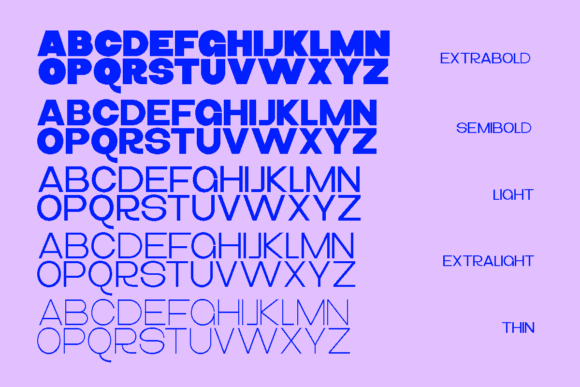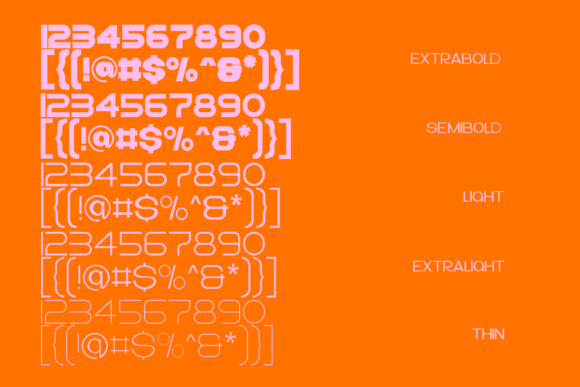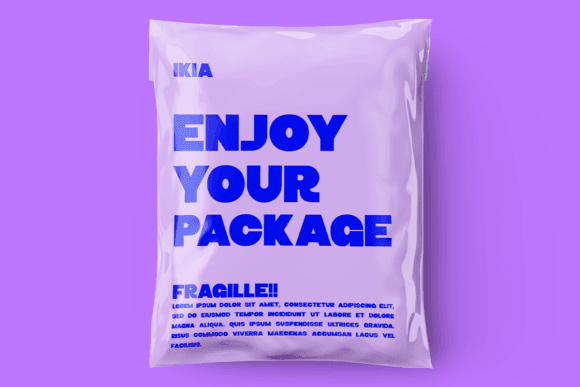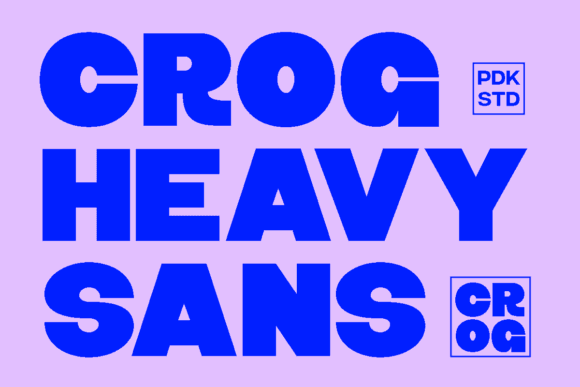
Guide to Crog Font: A Bold, Cheerful Sans-Serif Typeface
When it comes to fonts, the right choice can make or break a design. Typography plays a crucial role in conveying mood, message, and brand identity, and one standout option that checks all the right boxes is Crog Font. This bold sans-serif typeface has captured the attention of designers thanks to its unique combination of confidence, playfulness, and versatility. With a total of nine styles in its font family, Crog Sans Serif Font offers plenty of opportunities for creative expression.
Crog Sans Serif Font
What is Crog Font?
Crog Font is a bold sans-serif typeface characterized by its chunky, cheerful appearance. Its soft, rounded corners make it approachable and friendly, while its substantial weight and size exude confidence without veering into aggressiveness. The font family includes nine styles:
- Thin
- Extra Light
- Light
- Regular
- Medium
- Semi Bold
- Bold
- Extra Bold
- Black
This wide range of styles allows Crog to adapt seamlessly to a variety of design contexts, from headlines and logos to posters, advertisements, and beyond.
Why Choose Crog Font?
Crog Font stands out for several reasons, making it a go-to choice for designers across industries. Here’s why Crog is worth considering for your next project:
- Big and Chunky
The bold, oversized letters of Crog Font immediately grab attention. Its chunky design ensures that it stands out, making it perfect for bold statements in headlines, banners, and branding. - Playful Yet Professional
Thanks to its soft corners and rounded edges, Crog manages to feel approachable and fun while still maintaining a professional aesthetic. This balance makes it suitable for a wide range of applications, from casual designs to more formal branding needs. - Versatility Across Styles
With nine font weights ranging from Thin to Black, Crog provides ample flexibility. Whether you need something light and subtle or bold and impactful, there’s a style in the Crog family that fits the bill. - Readable at Any Size
Despite its chunky, bold design, Crog remains highly readable. This feature makes it suitable for both small text elements and large-scale designs, including posters, signage, and social media graphics. - Perfect for Image-Fill Effects
One of Crog’s standout features is its suitability for image-fill effects. Its large, bold letters can be filled with textures, patterns, or images while still maintaining excellent legibility. This makes it an ideal choice for eye-catching designs with a modern twist.
Applications of Crog Font
Crog Font’s versatility means it can be used across a wide range of design projects. Here are just a few ways you can incorporate this bold sans-serif into your work:
- Branding and Logos
Crog’s confident, approachable style makes it an excellent choice for logos. It communicates strength and reliability while maintaining a friendly, inviting tone—perfect for modern brands. - Posters and Advertisements
If your design needs to grab attention quickly, Crog’s bold, oversized letters can do the trick. Its readability ensures that your message comes across loud and clear, even from a distance. - Social Media Graphics
In the fast-paced world of social media, catching a viewer’s eye is critical. Crog’s chunky, playful design stands out on crowded feeds, ensuring your content gets noticed. - Web Design and UI
Crog’s readability and clean aesthetic make it a great choice for web and user interface design. It works well for headlines, calls to action, and other key elements that need to stand out. - Merchandise and Packaging
Whether it’s a bold slogan on a t-shirt or eye-catching text on a product label, Crog Font can add personality and impact to your merchandise and packaging designs.
Why Designers Love Crog Font
Designers appreciate Crog Font for its unique ability to combine boldness and approachability. Its playful nature invites creativity, while its professional edge ensures it can be used across a variety of projects. The nine styles in the Crog family offer flexibility, allowing designers to experiment and find the perfect fit for their needs.